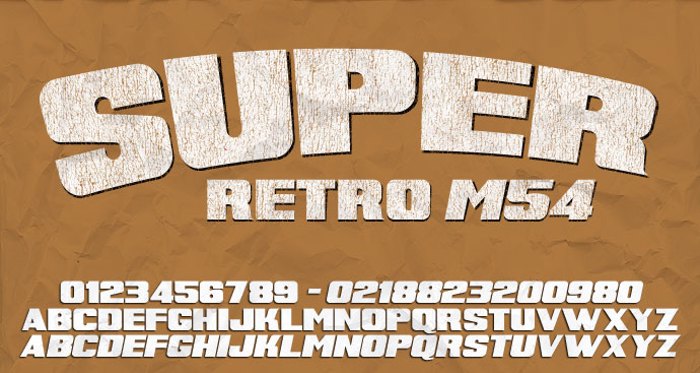
Super Retro M54 Font
A super extended retro style font I created that encapsulates a vintage feel. Great for T-shirts and apparel design, best in bigger point sizes. A similar font to use alongside this would be Compacta.